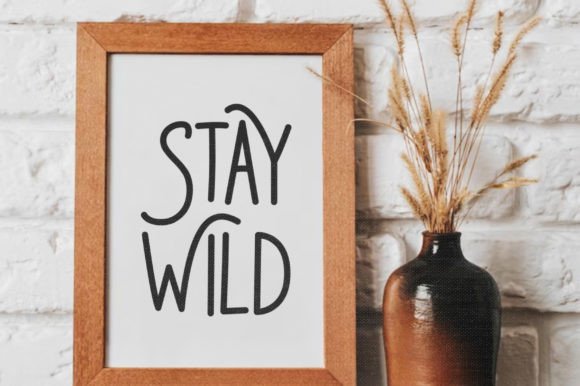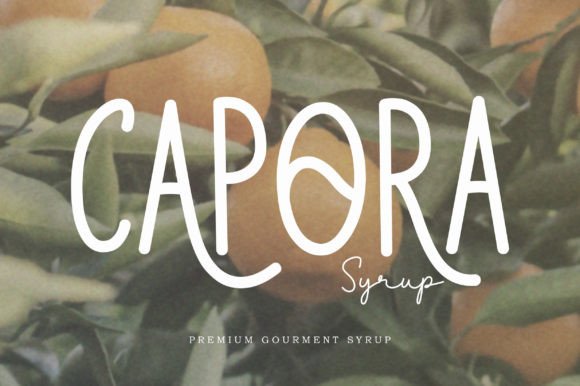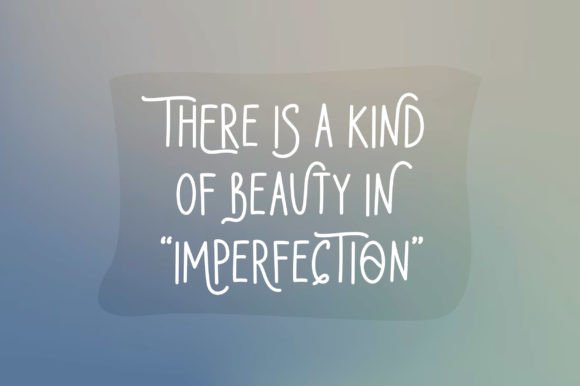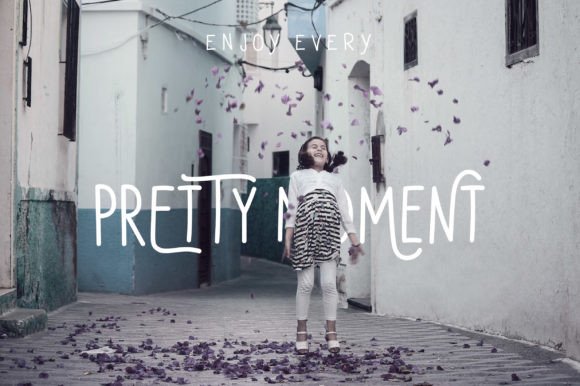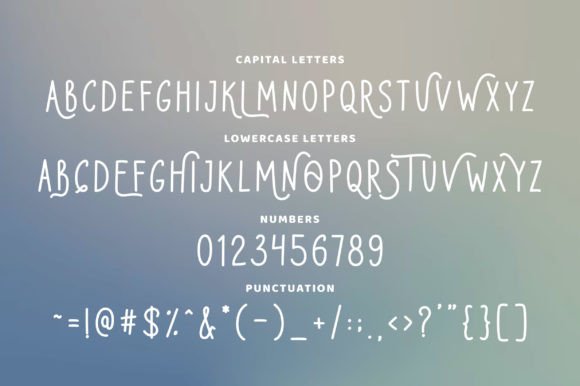
Introduction to Lily Bird Font
As you sit at your desk, surrounded by scraps of paper and half-finished ideas, you stumble upon a design concept that sparks joy. Maybe it’s a wedding invitation, a birthday card, or a quote to inspire a friend. Whatever it is, you know you need a font that captures the essence of your creative vision. That’s where the Lily Bird Font comes in – a sweet and charming handwritten font that adds a touch of whimsy to any project.
For designers, finding the perfect font can be a game-changer. It’s the difference between a mediocre design and a masterpiece. And with the Lily Bird Font, you can rest assured that you’re getting a high-quality, free download that’s perfect for a variety of creative projects, from logos to posters.
This versatile font features a transparent background, making it easy to customize and layer with other design elements. Whether you’re working on a business card, a Cricut project, or a simple quote, the Lily Bird Font is a valuable resource that’s sure to elevate your designs and bring a smile to your clients’ faces.
Key Features of Lily Bird Font
- High-quality, unique design ideal for creative projects and artistic endeavors
- Transparent background, allowing for seamless integration with various design elements
- Includes a range of font sizes and resolutions, from 72 dpi to 300 dpi, for optimal display
- Designed with a delicate, whimsical style, perfect for adding a touch of elegance to any creative project
- Includes a comprehensive character set, including uppercase and lowercase letters, numbers, and punctuation marks
Honest Review: Lily Bird Font
I recently had the chance to work with the Lily Bird Font, and I must say it’s been a delightful experience. As a designer, I’m always on the lookout for high-quality design resources that can elevate my creative projects. This font definitely fits the bill.
What works well: ✨ The Lily Bird Font has a beautiful, delicate design that’s perfect for projects that require a touch of whimsy. The font is also highly customizable, making it easy to adjust the size, color, and transparency to suit your needs. Speaking of transparency, it’s worth noting that the font includes a transparent background option, which is a huge plus for designers who want to create seamless designs.
- High quality: The font is expertly crafted and looks great at various font sizes.
Any limitations: ⚠️ While the Lily Bird Font is an excellent resource, it may not be suitable for projects that require a bold, attention-grabbing font. The delicate design may get lost in busy or cluttered layouts.
Overall impression: I’m thoroughly impressed with the Lily Bird Font. It’s a fantastic addition to any designer’s toolkit, and I’m excited to see how it will elevate my future creative projects.
Using Lily Bird Font in Creative Projects
With Lily Bird Font, you can elevate your creative projects, such as social media graphics, posters, or branding materials. This high-quality design resource is perfect for artists and designers looking to add a unique touch to their work.
Getting the Most Out of Lily Bird Font
For optimal results, use Lily Bird Font in combination with a high-quality image or background. Experiment with different font sizes and colors to achieve a visually appealing design. Don’t be afraid to push the boundaries of your creativity with this versatile design resource.
Lily Bird Font is suitable for a wide range of applications, including:
- Branding materials, such as logos and business cards.
- Social media graphics and advertisements.